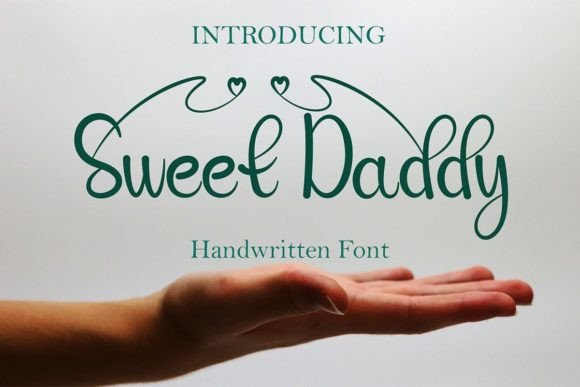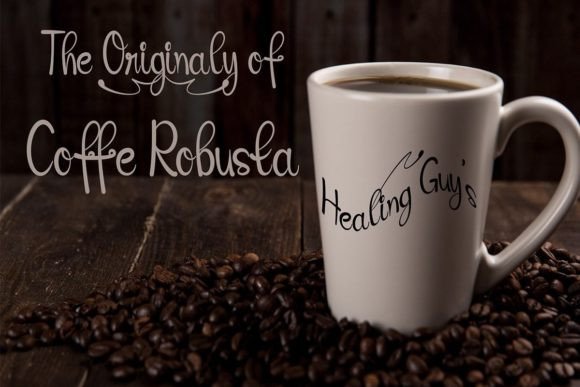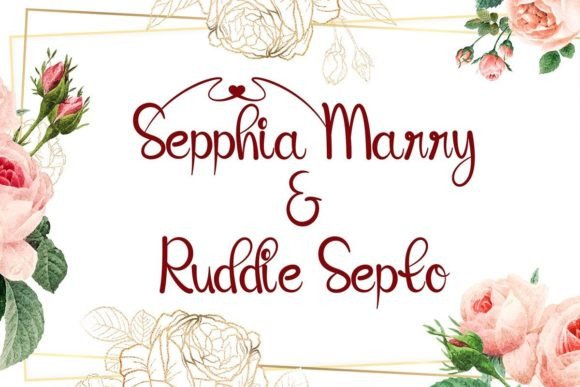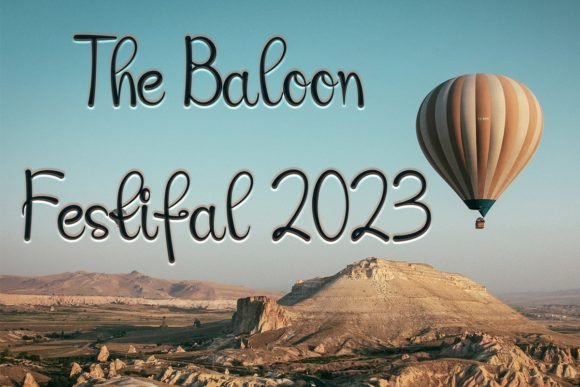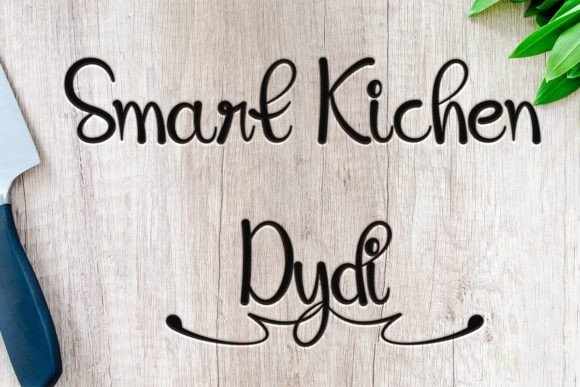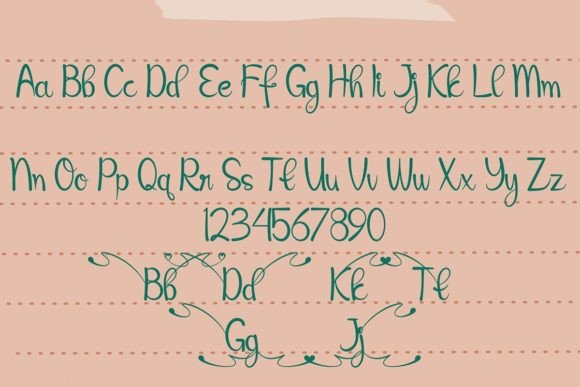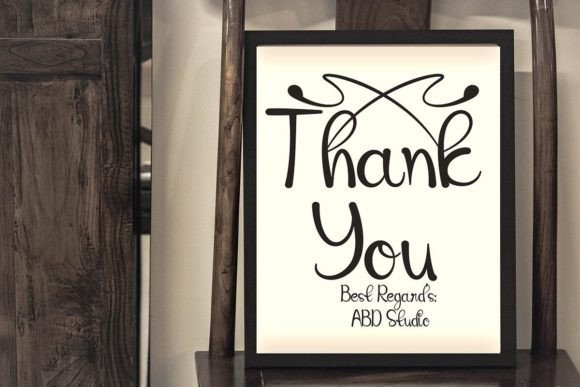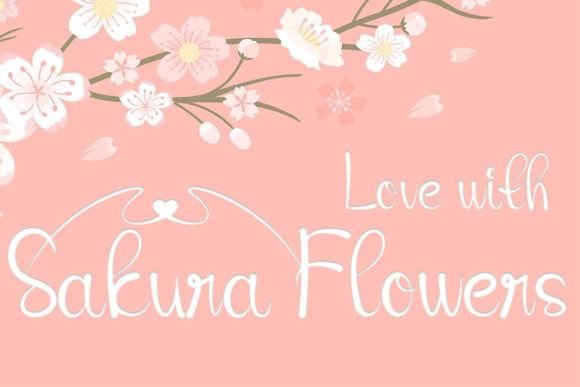
Sweet Daddy Font
About Sweet Daddy Font
Sweet Daddy Font is an elegant handwritten typeface designed to bring a touch of sophistication to your projects. Its versatile nature allows for successful integration into various design contexts, including packaging, wedding invitations, business cards, greeting cards, social media posts, wall art, and more. This font is a particularly crafted solution for those seeking a beautiful and refreshing look in their designs.
The elegant script of Sweet Daddy Font adds a sense of refinement and style, making it suitable for a range of applications. Its graceful appearance enhances the visual appeal of packaging, creating a luxurious and distinctive look. In wedding invitations and business cards, this font contributes to an elegant and memorable presentation.
Sweet Daddy Font’s PUA encoding is a notable feature, providing easy access to a variety of glyphs and ligatures. This ensures a smooth design process, allowing you to incorporate unique characters seamlessly into your projects and explore creative possibilities effortlessly.
In essence, Sweet Daddy Font goes beyond being just a font; it’s a design asset that brings elegance and refreshment to your creative endeavors. Whether you’re working on print or digital materials, its sophisticated script and PUA encoding make it a valuable tool for designers aiming to achieve a beautiful and distinctive look in their designs.